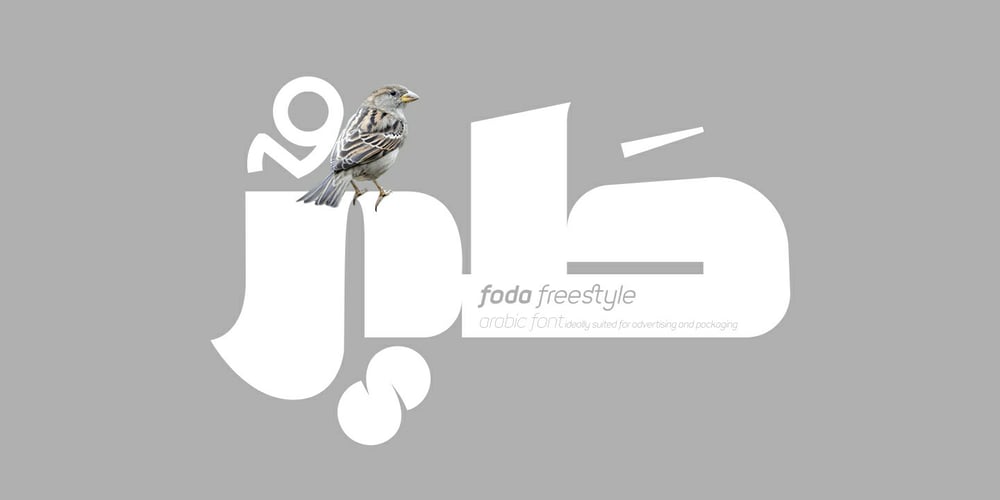
Foda Freestyle Font Family was designed by Ahmed Eraqi, Nohamad Foda and published by Fo Da. Foda Freestyle contains 1 styles and family package options. Foda FreeStyle is a display Arabic font with High contrast that will surly get your attention, comes in single weight. It can be used for headlines, sub heads, posters, advertising and other many purposes.